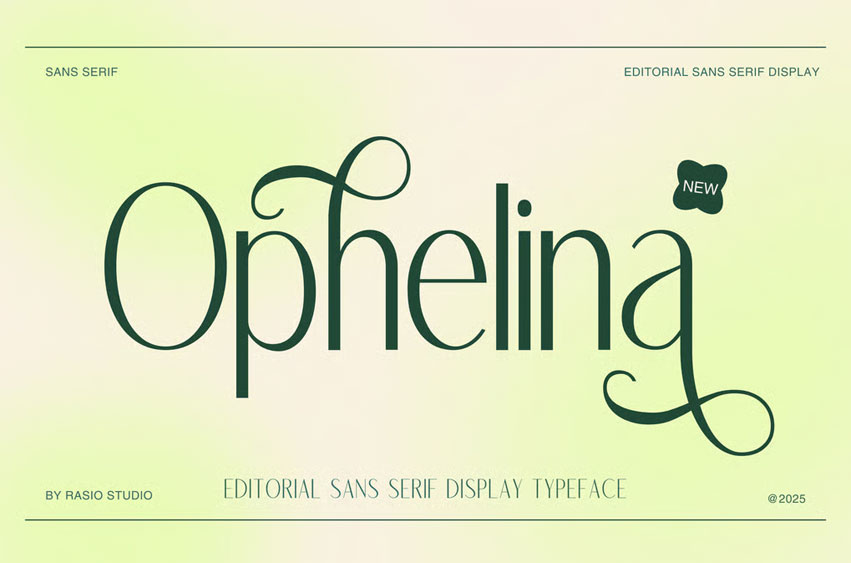
Ophelina Font
Ophelina Font is an editorial sans serif display typeface that blends minimalist elegance with modern luxury styling. Featuring tall, thin letterforms, graceful curves, and subtle ligatures, it delivers a sophisticated look perfect for upscale branding, fashion editorials, wedding stationery, and luxury product packaging. With multilingual support and refined details, Ophelina is a versatile premium font suitable for professional design projects, from corporate logos to high-end magazine layouts.
Relevance and Use Cases are perfect for Modern sans-serif projects, minimalist branding, luxury brand identity, editorial design, wedding invitations, fashion campaigns, professional corporate identity, magazine headlines, premium packaging, high-end logo design, sophisticated signage, and multilingual applications.